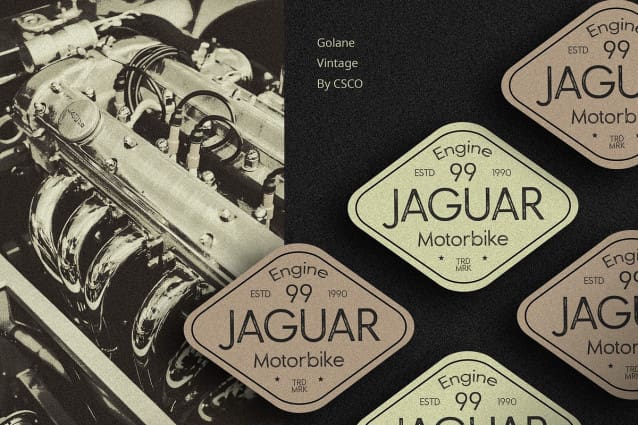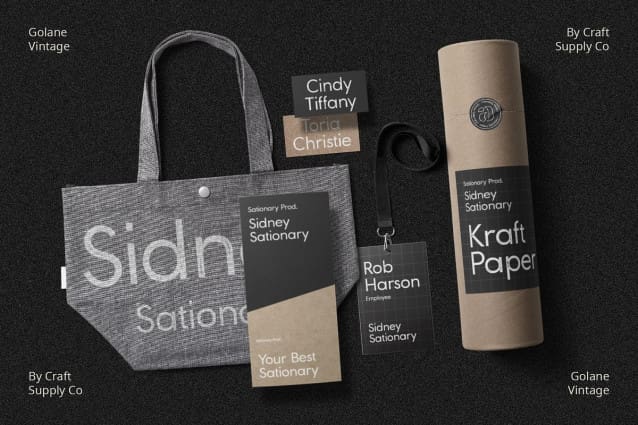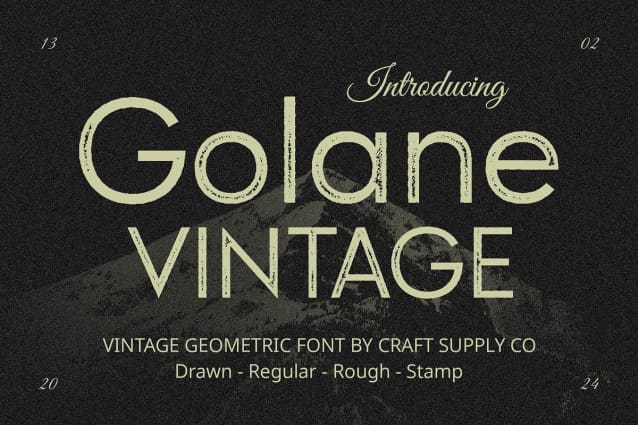
Golane Vintage Font
Golane Vintage Font: Embodying Retro Elegance. Low Contrast Sans Serif Design Golane Vintage features a sans serif typeface with low contrast, ensuring a balanced and uniform appearance across its characters. This design choice enhances readability and lends a modern touch to the vintage aesthetic.
Stamp Rough Effect The font is further enriched with a stamp rough effect, adding texture and personality reminiscent of aged prints. This rugged detailing evokes a sense of nostalgia, giving This font its distinctive vintage charm.
Vintage Appeal for Modern Projects Crafted for contemporary design projects seeking a nostalgic touch, This font offers a unique blend of vintage appeal and modern functionality. Its low-contrast sans serif design, coupled with the stamp rough effect, makes it an ideal choice for various display applications.
Versatility in Application From branding materials to packaging and editorial design, This font excels in a wide range of applications. Its timeless vintage vibe adds character and depth to any project, ensuring that your designs stand out with a touch of retro elegance.
Timeless Retro Charm This font embodies the essence of retro elegance with its low-contrast sans serif design and stamp rough effect. Perfect for modern projects seeking a vintage aesthetic, this font combines nostalgia with functionality, offering versatility and charm in equal measure. Step back in time with Golane Vintage and elevate your designs with its timeless appeal.